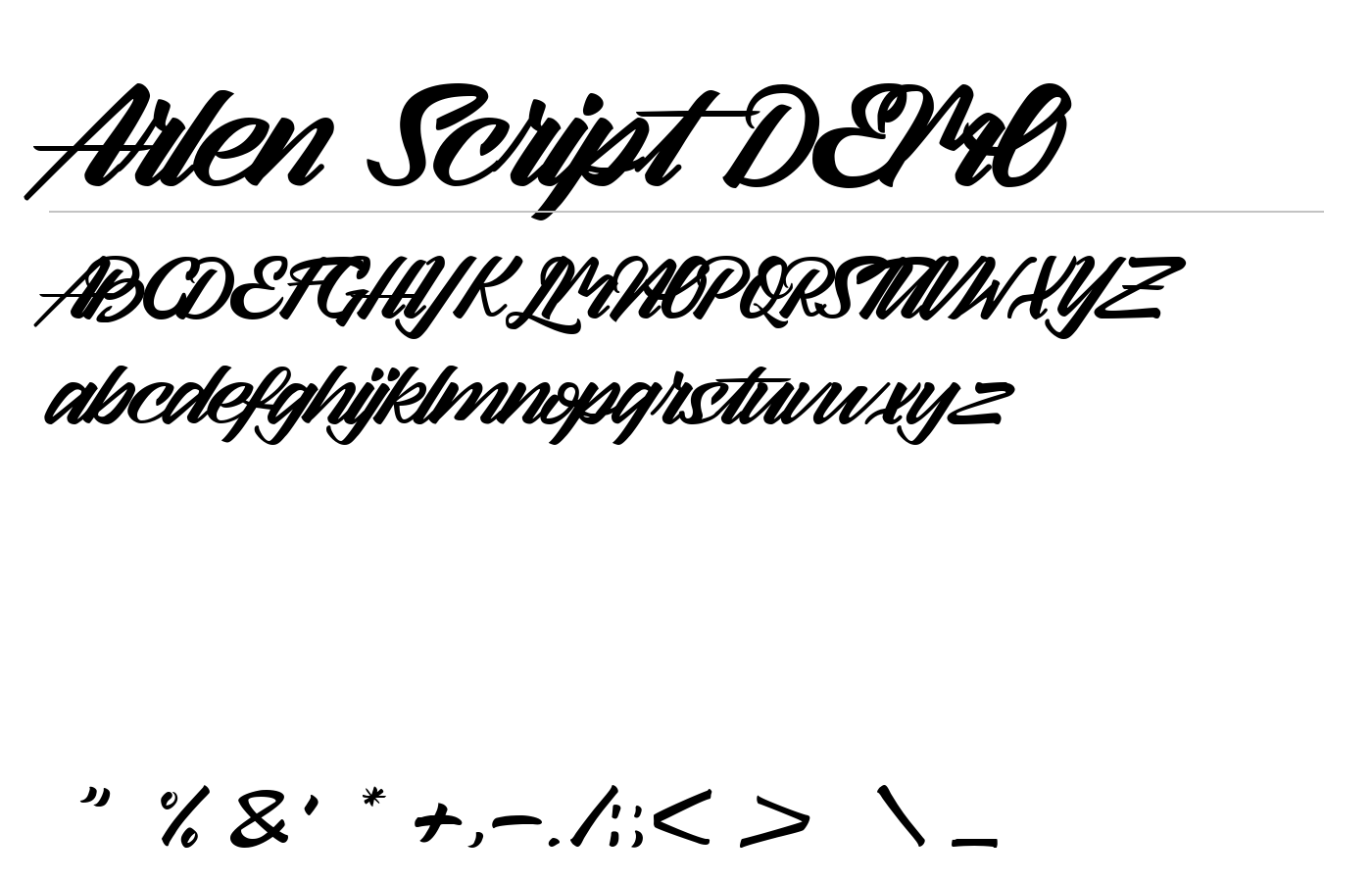
Arlen Script DEMO is a bold, flowing script font with a lively, handwritten feel. Its connected letters and dynamic strokes make it perfect for adding a personal, elegant touch to branding, invitations, or headlines where a warm, artistic vibe is desired. This font works well in creative projects that need a stylish yet approachable look.
Arlen Script DEMO Font